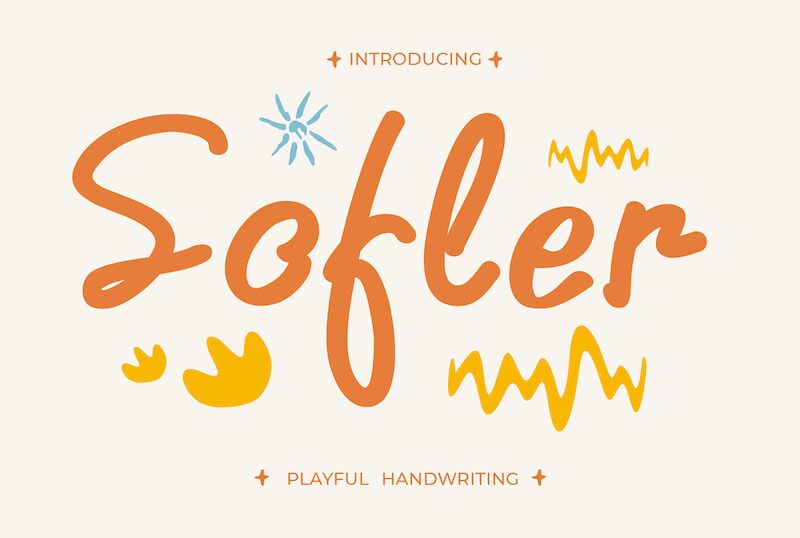
Sofler, a playful handwritten font designed by Mans Greback, adds a touch of whimsy and personality to any project. With its semi-light weight, it strikes the perfect balance between elegance and legibility. Ideal for children's books, greeting cards, and event invitations, Sofler brings a youthful charm to your designs. Its fluid strokes and unique letterforms make it suitable for logos, branding materials, and social media graphics that aim to captivate the audience. Let Sofler's delightful curves and imaginative flair elevate your next creative endeavor.